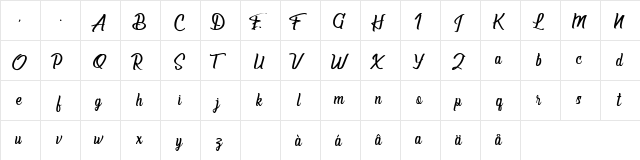
Deliverance (FREE PERSONAL USE) Regular
Design Context for Deliverance (FREE PERSONAL USE) Typeface
Deliverance (FREE PERSONAL USE) is a composed and adaptable typeface that performs quietly and consistently across a wide range of design contexts.